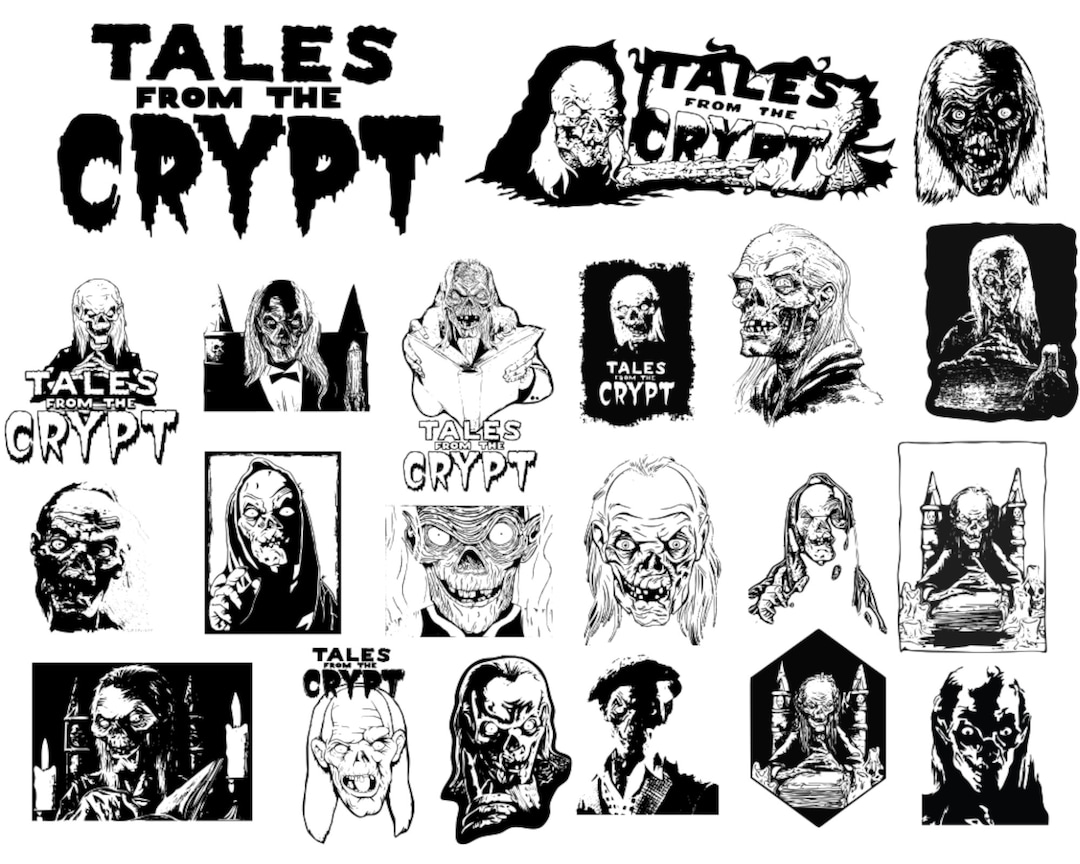
Tales From The Crypt Font - The time is now 14:45. Font details and information tales from the crypt (15 star) (50 kb) (1 font) 34.439 downloads, 6 the last thirty days (free) Archive of freely downloadable fonts. Can anyone identify this font? Discover a world of captivating typography for your creative projects. A user shares a link to a free font that mimics the lettering style of the old horror comic books tales from the crypt. Explore tales from the crypt font fonts at myfonts. The post has no comments and.
Can anyone identify this font? The time is now 14:45. A user shares a link to a free font that mimics the lettering style of the old horror comic books tales from the crypt. The post has no comments and. Font details and information tales from the crypt (15 star) (50 kb) (1 font) 34.439 downloads, 6 the last thirty days (free) Archive of freely downloadable fonts. Discover a world of captivating typography for your creative projects. Explore tales from the crypt font fonts at myfonts.
Archive of freely downloadable fonts. Can anyone identify this font? The time is now 14:45. Font details and information tales from the crypt (15 star) (50 kb) (1 font) 34.439 downloads, 6 the last thirty days (free) A user shares a link to a free font that mimics the lettering style of the old horror comic books tales from the crypt. Explore tales from the crypt font fonts at myfonts. Discover a world of captivating typography for your creative projects. The post has no comments and.
Discover a world of captivating typography for your creative projects. A user shares a link to a free font that mimics the lettering style of the old horror comic books tales from the crypt. The post has no comments and. Font details and information tales from the crypt (15 star) (50 kb) (1 font) 34.439 downloads, 6 the last thirty.
Discover a world of captivating typography for your creative projects. A user shares a link to a free font that mimics the lettering style of the old horror comic books tales from the crypt. Explore tales from the crypt font fonts at myfonts. Can anyone identify this font? The time is now 14:45.
The post has no comments and. Archive of freely downloadable fonts. A user shares a link to a free font that mimics the lettering style of the old horror comic books tales from the crypt. The time is now 14:45. Can anyone identify this font?
A user shares a link to a free font that mimics the lettering style of the old horror comic books tales from the crypt. Discover a world of captivating typography for your creative projects. Can anyone identify this font? The post has no comments and. Archive of freely downloadable fonts.
The time is now 14:45. Explore tales from the crypt font fonts at myfonts. Font details and information tales from the crypt (15 star) (50 kb) (1 font) 34.439 downloads, 6 the last thirty days (free) A user shares a link to a free font that mimics the lettering style of the old horror comic books tales from the crypt..
The post has no comments and. Can anyone identify this font? A user shares a link to a free font that mimics the lettering style of the old horror comic books tales from the crypt. Font details and information tales from the crypt (15 star) (50 kb) (1 font) 34.439 downloads, 6 the last thirty days (free) Discover a world.
Discover a world of captivating typography for your creative projects. Font details and information tales from the crypt (15 star) (50 kb) (1 font) 34.439 downloads, 6 the last thirty days (free) Archive of freely downloadable fonts. Explore tales from the crypt font fonts at myfonts. Can anyone identify this font?
Font details and information tales from the crypt (15 star) (50 kb) (1 font) 34.439 downloads, 6 the last thirty days (free) The time is now 14:45. A user shares a link to a free font that mimics the lettering style of the old horror comic books tales from the crypt. Discover a world of captivating typography for your creative.
A user shares a link to a free font that mimics the lettering style of the old horror comic books tales from the crypt. Font details and information tales from the crypt (15 star) (50 kb) (1 font) 34.439 downloads, 6 the last thirty days (free)